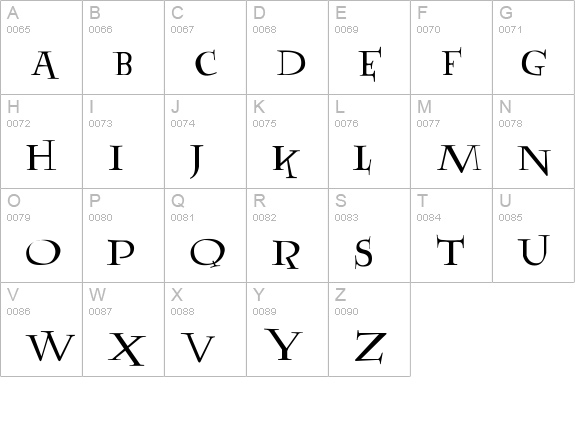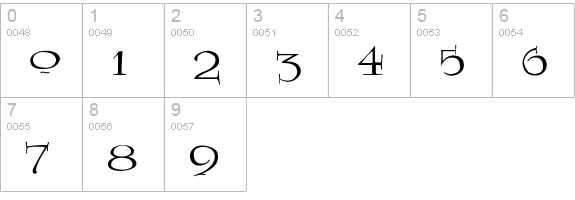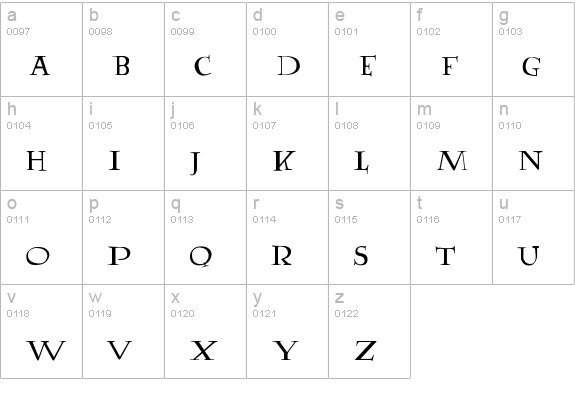
LumosLatino Font Details
Introducing LumosLatino, a mesmerizing font that effortlessly combines elegance and playfulness. This versatile typeface is the perfect choice for those seeking a touch of Latin flair in their designs. With its graceful curves and intricate details, LumosLatino adds a captivating charm to any project it graces. But what makes LumosLatino truly special is that it is not only stunning, but also free. Yes, you read that right - this extraordinary font is freely available to download at FontsMarket.com. Now, you can add a touch of sophistication to your designs without breaking the bank. Whether you're designing a logo, creating eye-catching headlines, or crafting elegant invitations, LumosLatino is the perfect companion. Its unique letterforms effortlessly blend together, creating a seamless flow that is both visually appealing and easy to read. With a wide range of ligatures and alternate characters, LumosLatino offers endless possibilities for creating truly one-of-a-kind designs. The versatility of LumosLatino is further enhanced by its extensive language support, ensuring that you can use this font to bring your vision to life, no matter the language. From English to Spanish, French to Portuguese, LumosLatino has got you covered. So why wait? Download LumosLatino today and unlock a world of design possibilities. Whether you're a professional designer or a passionate hobbyist, this font is sure to elevate your work to new heights. Don't miss out on this incredible opportunity to add a touch of Latin elegance to your designs - download LumosLatino for free at FontsMarket.com and let your creativity shine.